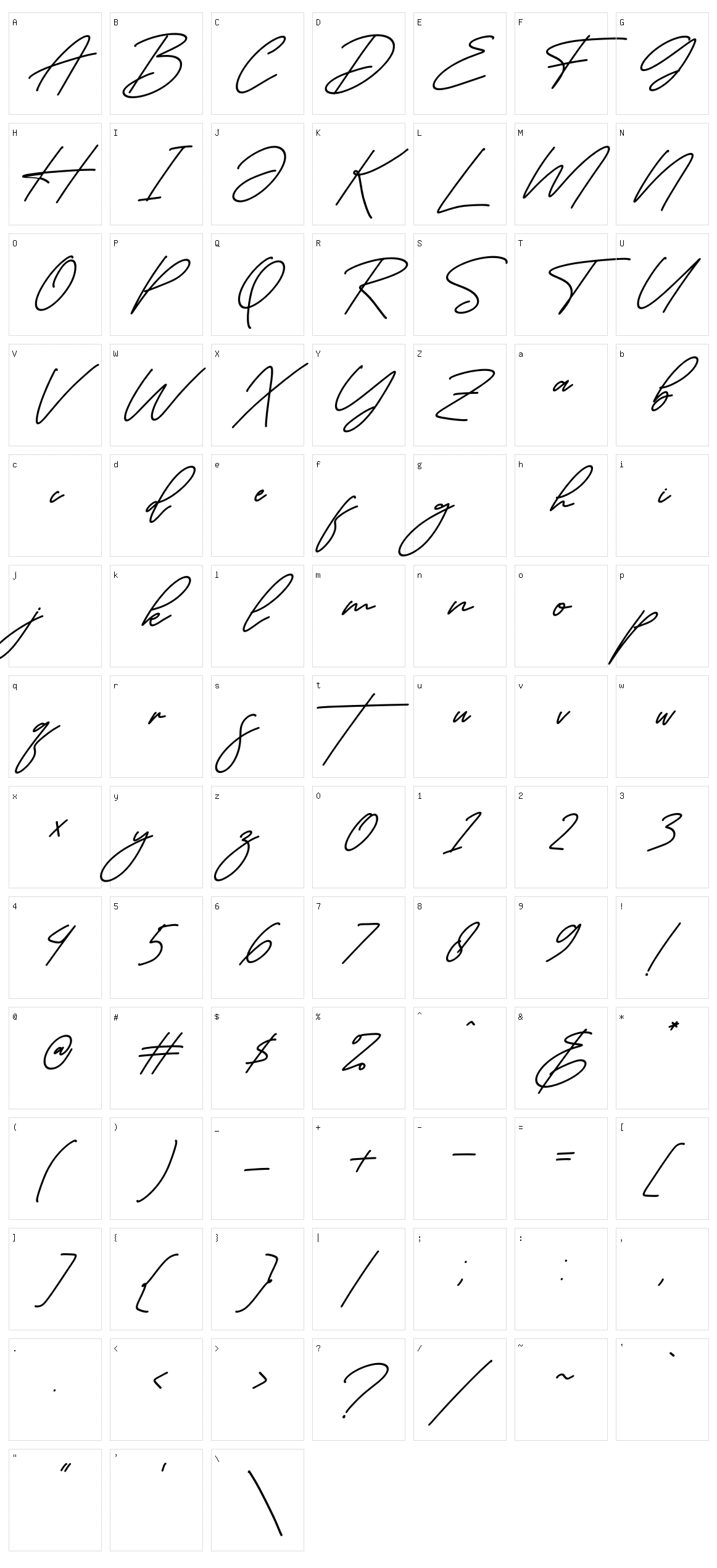
The free font Jhonathan Hartman is carefully designed by Perspectype Studio - Letterena.com, showcasing a thoughtful balance of creativity and usability and falls under the Script font style. When you download the ZIP file, it contains only 473.34 KB of font files, making it lightweight and quick to download. Please review the license details below to understand permitted usage and distribution rights. If license information is not available, we recommend using this font for personal projects only or contacting the author directly for commercial usage permissions.